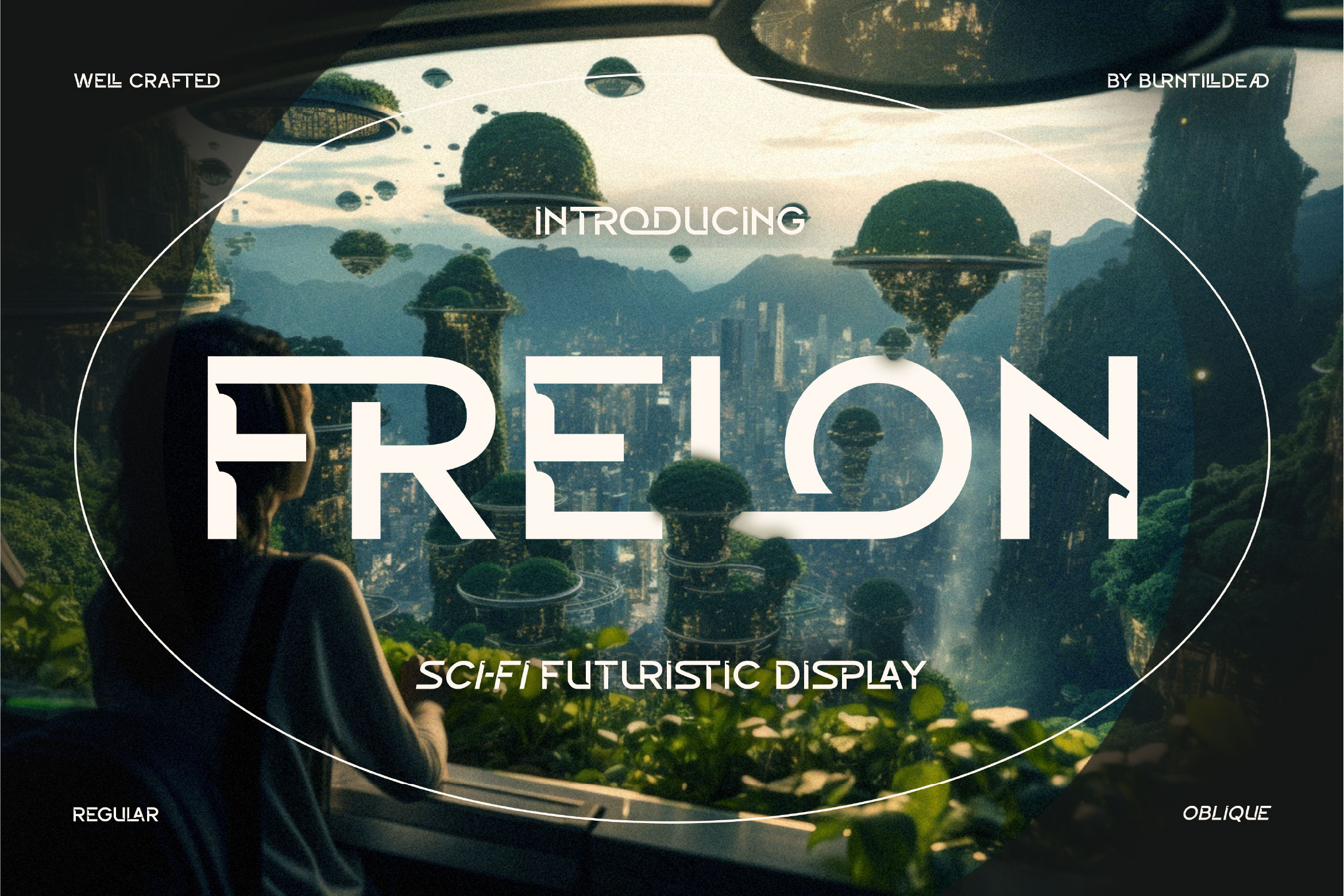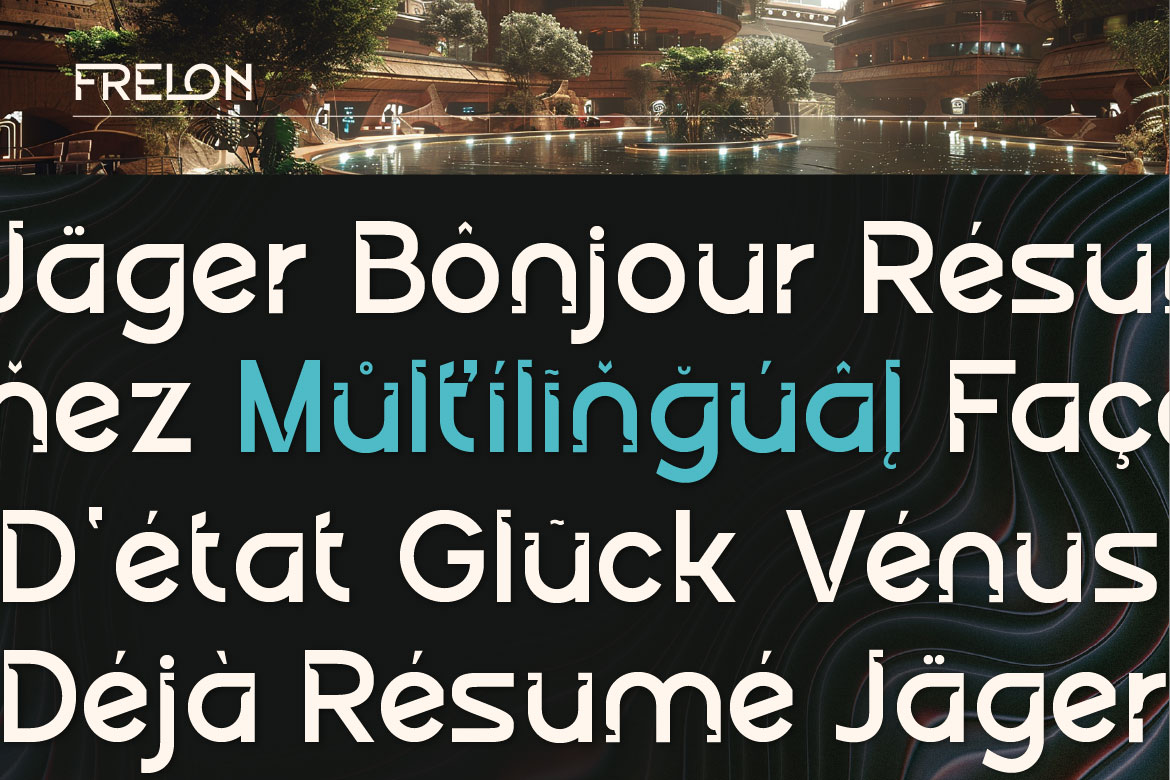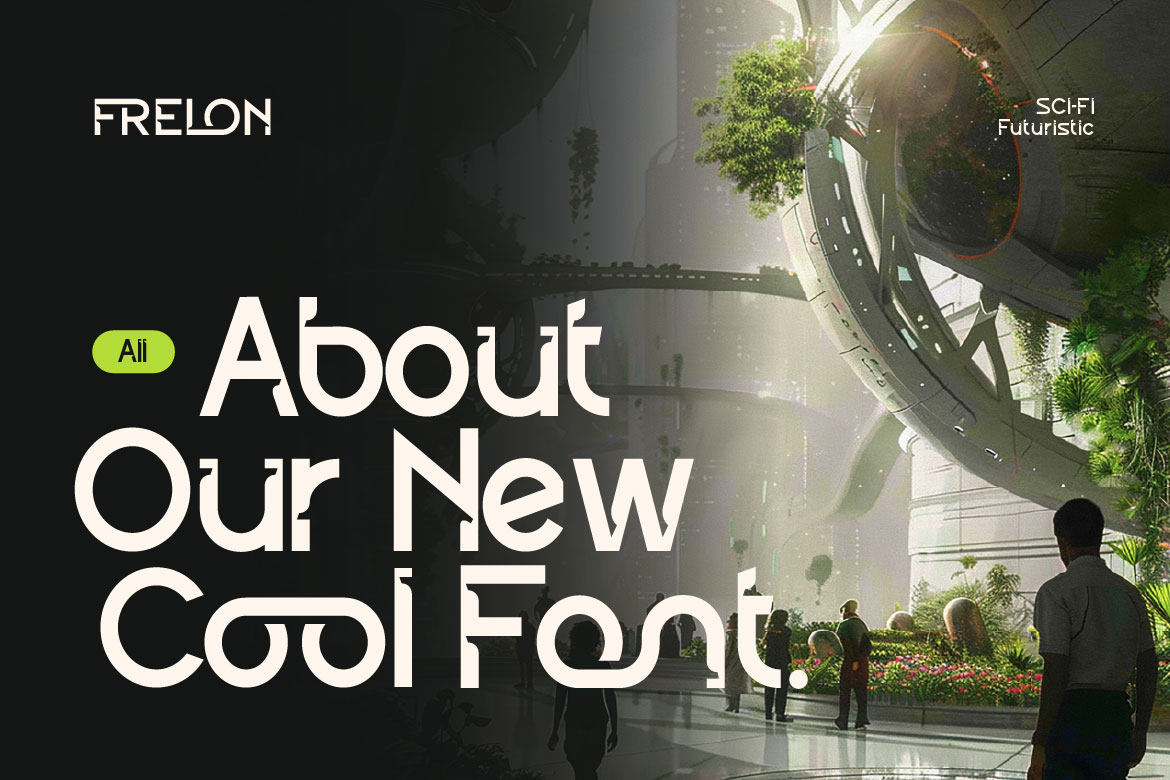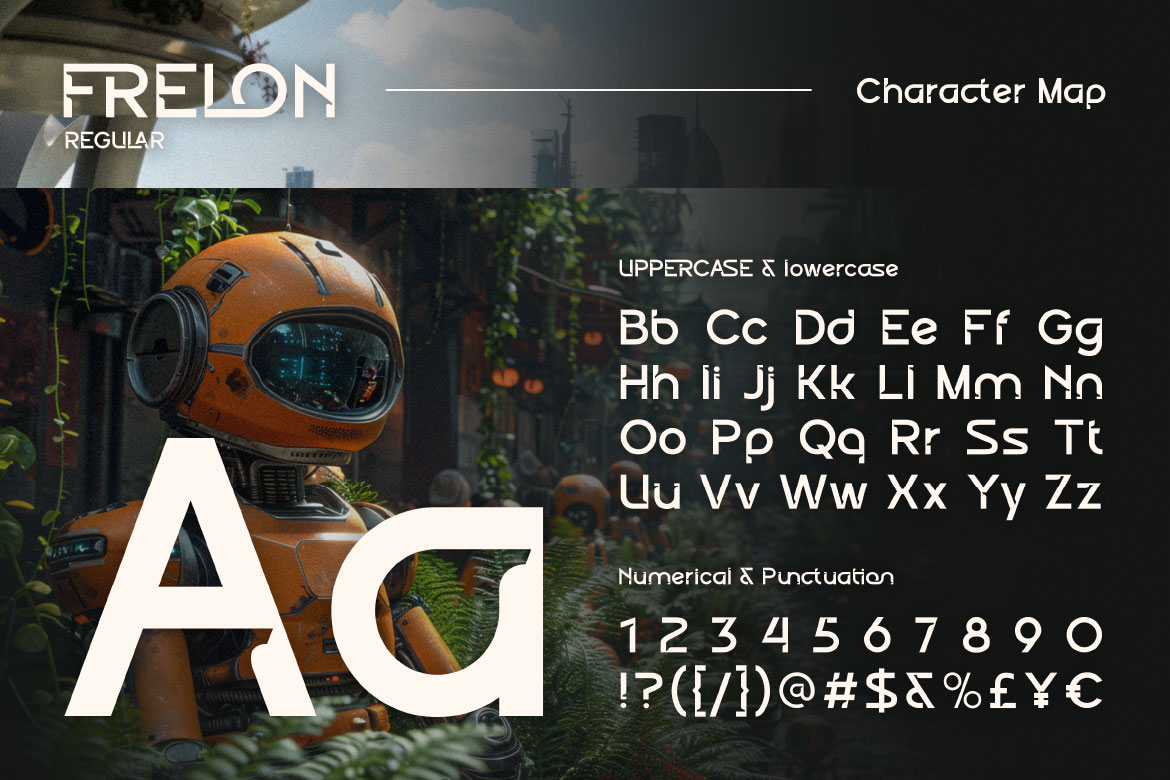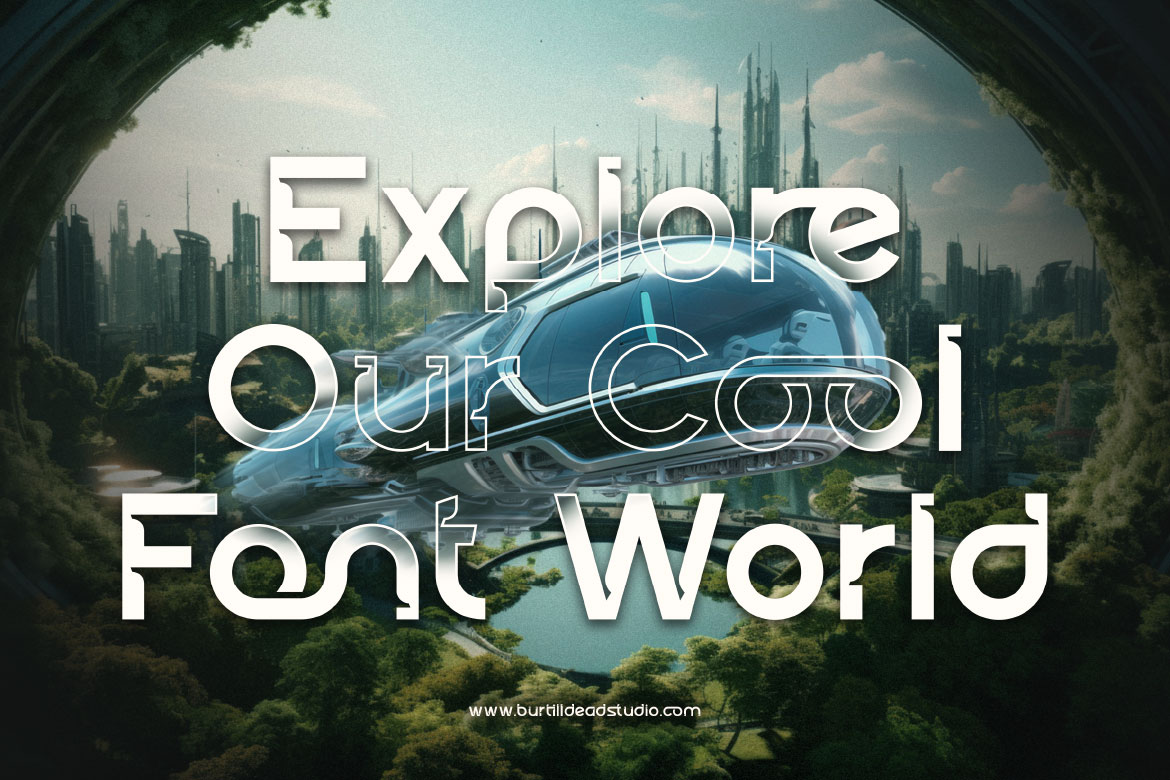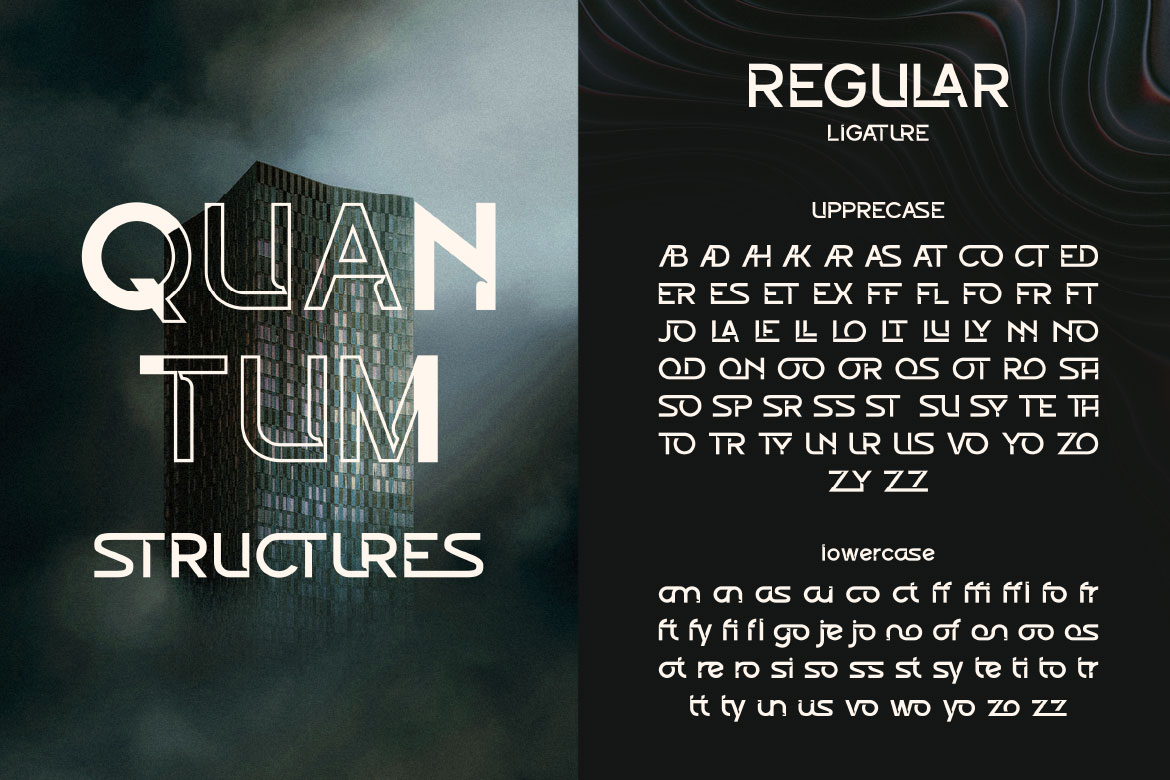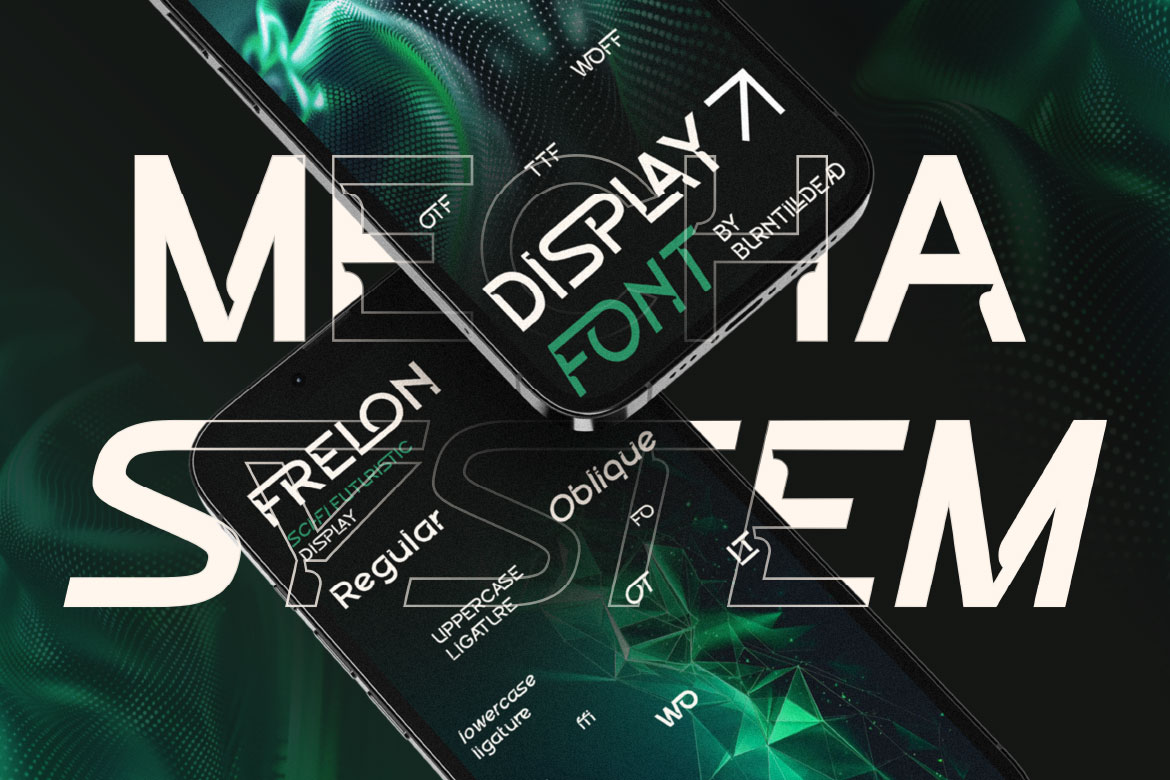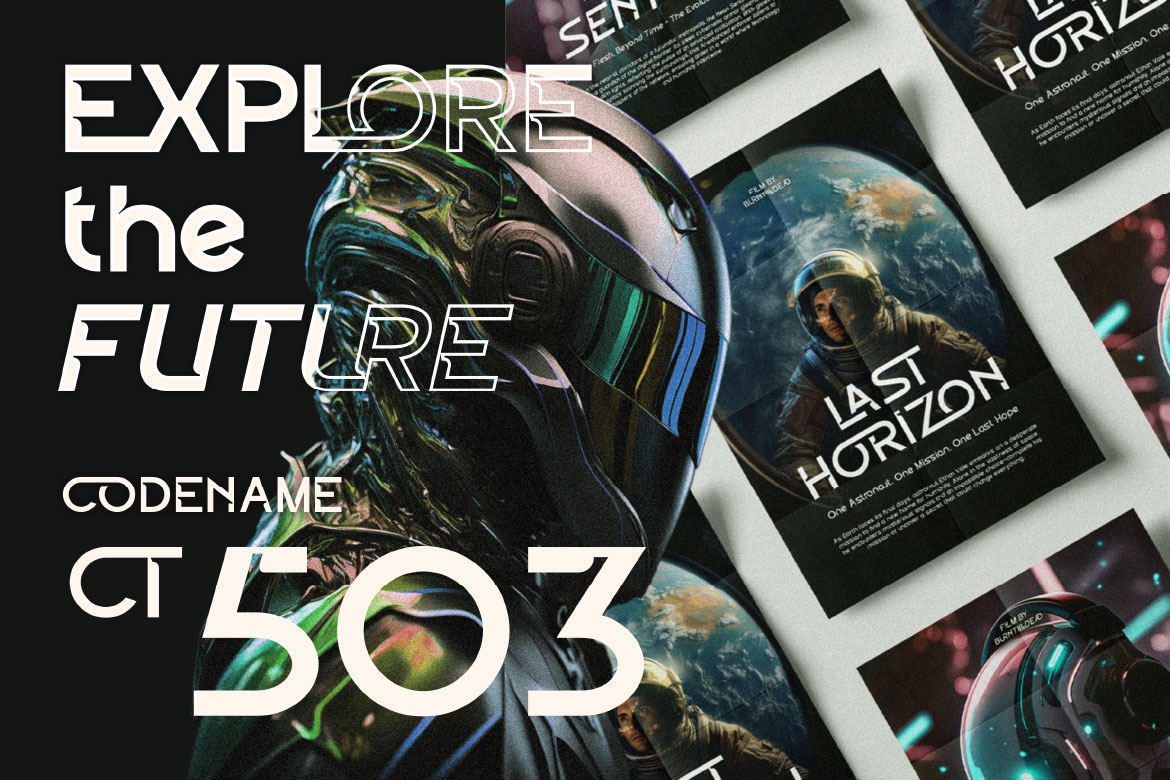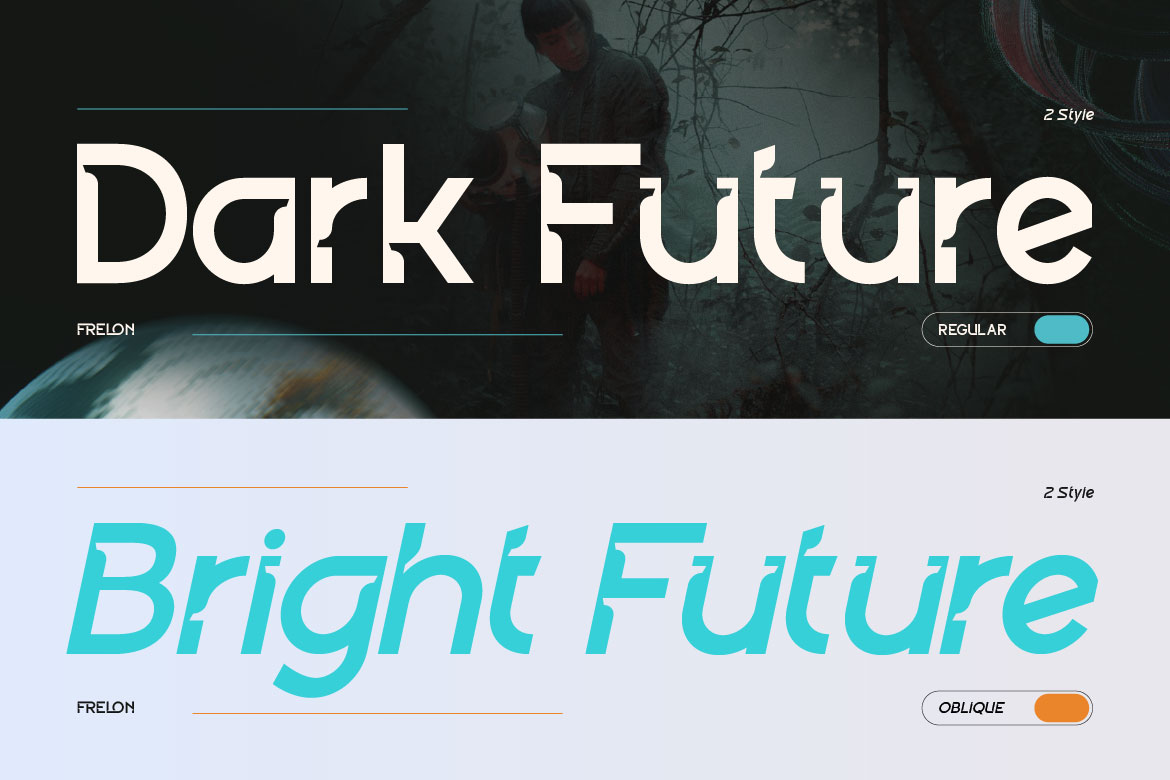
Introducing Frelon – a futuristic font with a modern touch. Frelon is a unique and dynamic typeface designed for those who love bold and futuristic styles. It comes in two styles: Regular and Oblique. The Regular style delivers a strong and solid look, while the Oblique version adds an energetic and fast-paced feel. Perfect for branding, technology, gaming, sci-fi, and cyberpunk themes, Frelon brings a sleek and modern edge to your designs. Whether you’re creating a futuristic logo, UI design, or eye-catching visuals, this font is ready to elevate your project!